On Pixel Surplus, The Handcrafted Font Bundle has been released!
What is inside of Pixel Surplus “The Handcrafted Font Bundle”
Overview of The Handcrafted Font Bundle is here.
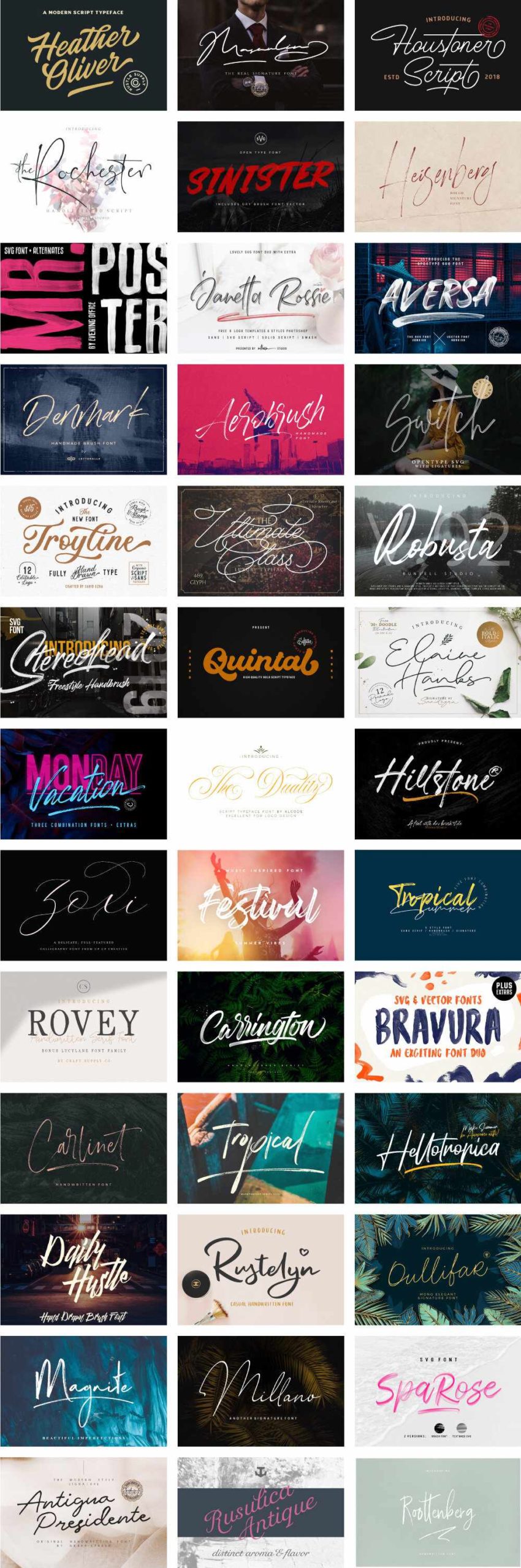
There are some examples from The Handcrafted Font Bundle